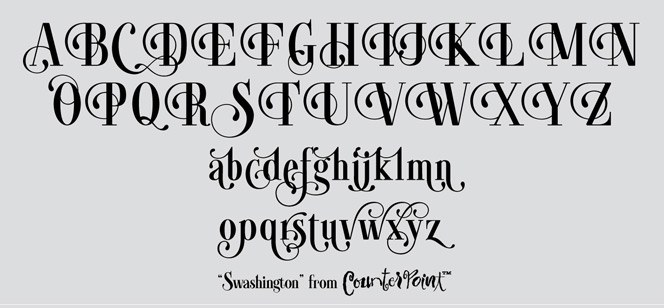
Swashington font
Swashington font is a modern serif font with a very interesting conception. It is inspired by a handwritten logo which has an early 20th century feeling but very much resembles the swash fonts of the 70’s too. The main feature of Swashington font is the possibility to use all ligatures and swashes which gives the users vast number of typographic variants. They can choose from a big set of Swash and Alternate letters (available via the Glyph Palette or with OpenType features) as well as more than 270 Discretionary ligatures that can be combined by mixing and matching in order to achieve the desired result. Extensive language support is provided for all languages that use Latin alphabet as well as all Eastern European languages.
Swashington font is a brainchild of the Michigan based designer Jason Walcott of the CounterPoint Type Studio – a new type foundry focused mainly on developing unique, one-of-a-kind, high-quality typefaces.
Designers: Jason Walcott
Publisher: CounterPoint Type Studio